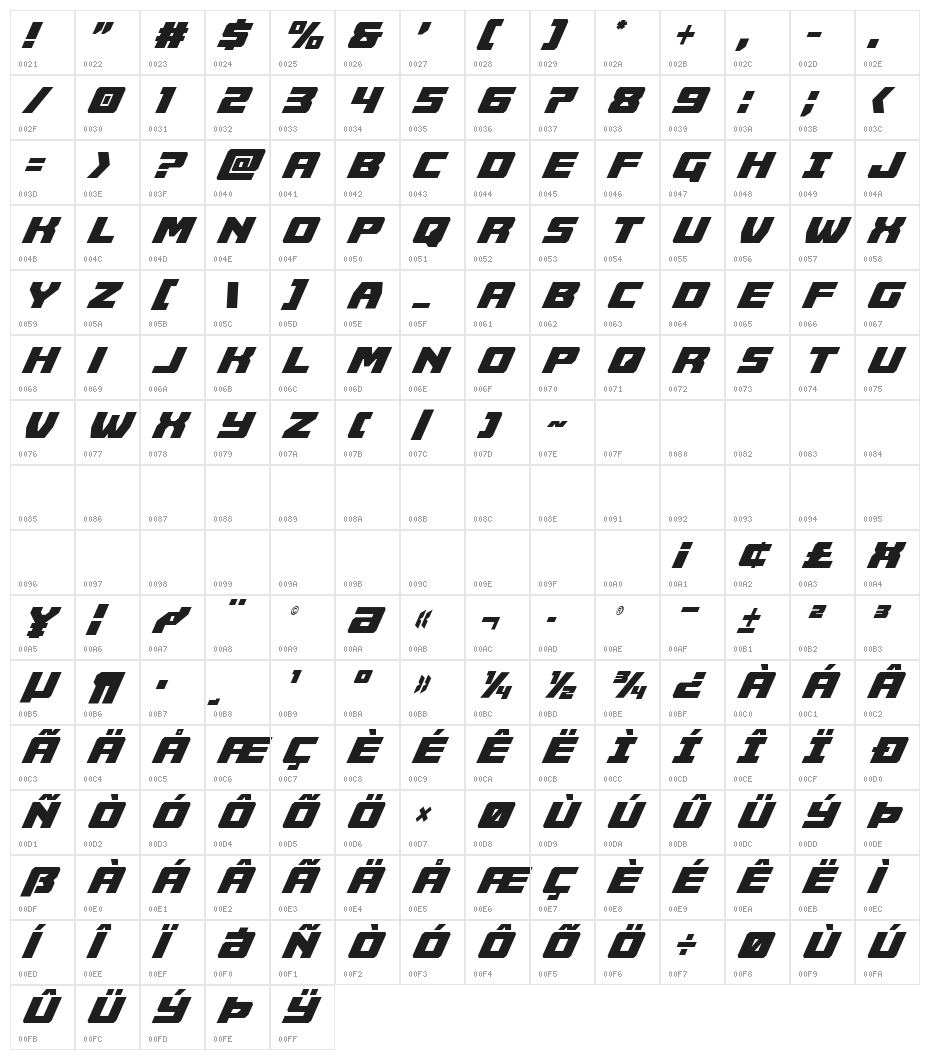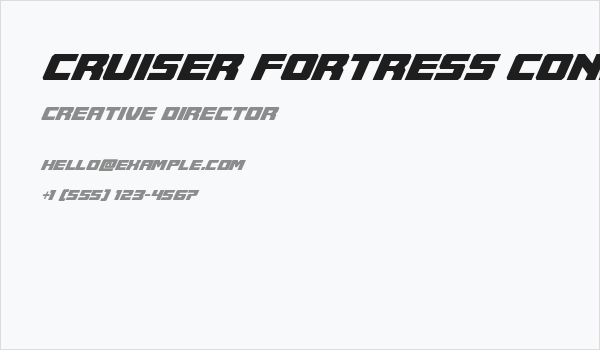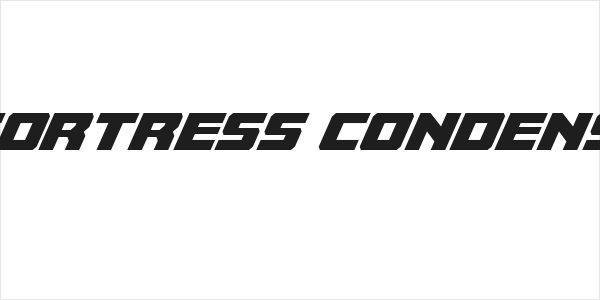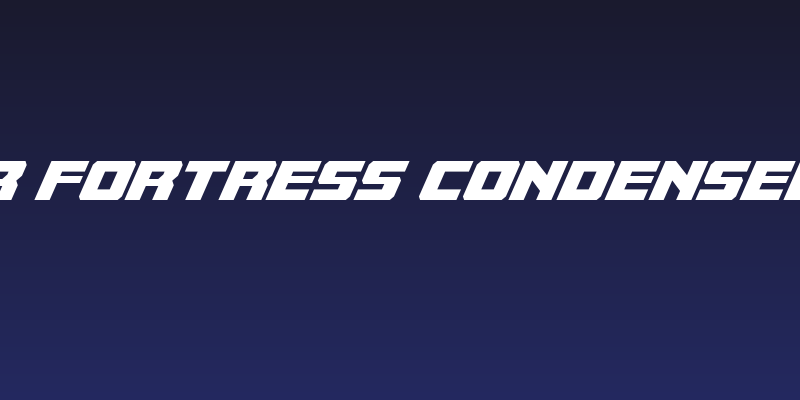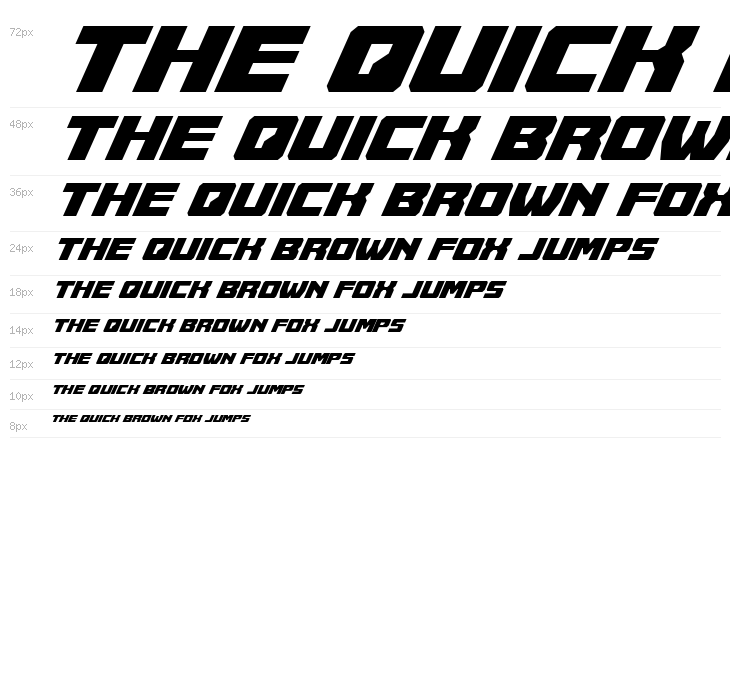
Cruiser Fortress Condensed Italic Font
Cruiser Fortress Condensed Italic Description
This font features a bold and dynamic style with a condensed and italicized form, giving it a strong and impactful appearance. The characters are designed with sharp angles and a futuristic aesthetic, making it suitable for modern and edgy designs. The uppercase and lowercase letters maintain a consistent style, with a slight slant that adds to the font's energetic feel. The numbers and special characters are equally bold, ensuring readability and consistency across all uses. This font's unique style makes it ideal for projects that require a standout and assertive typeface.
| Proposed Projects | Ideal for branding, sports team logos, video game titles, and sci-fi themed posters. |